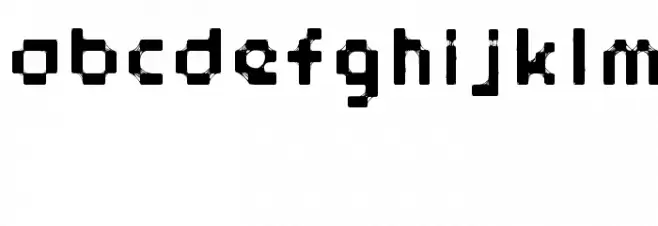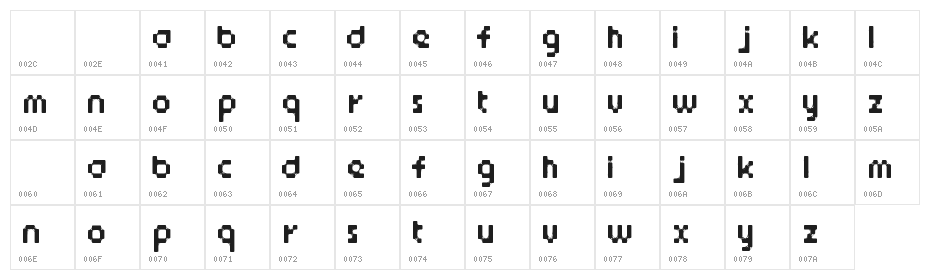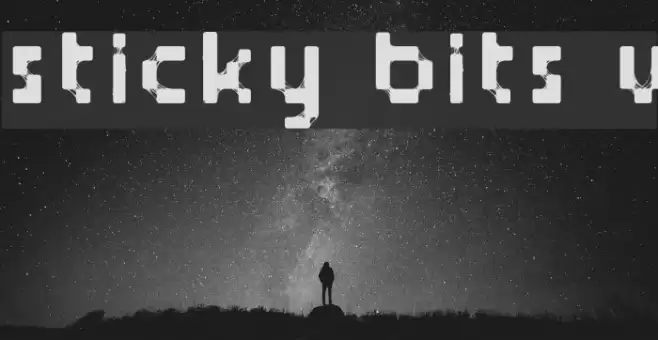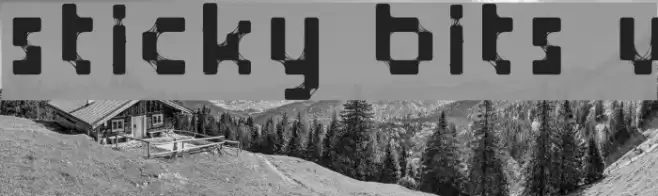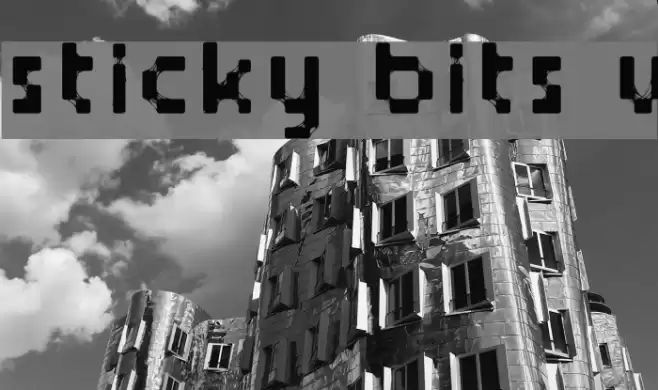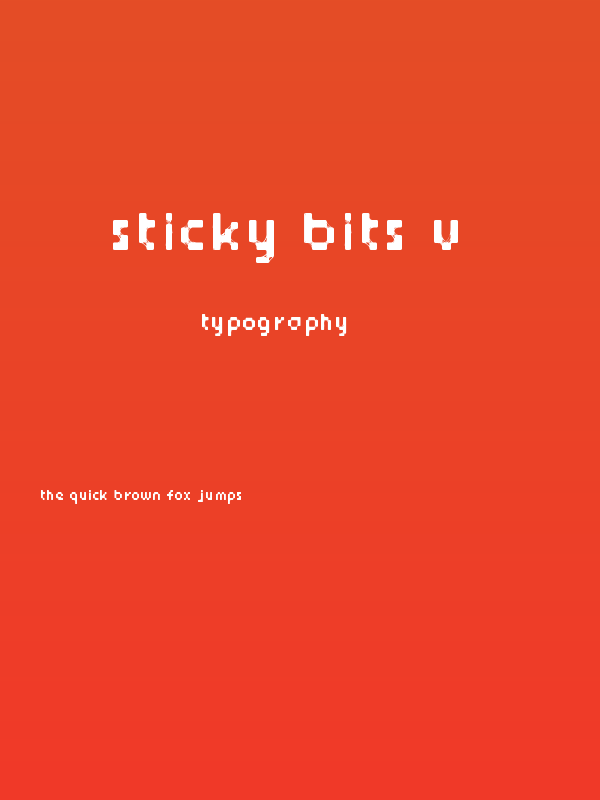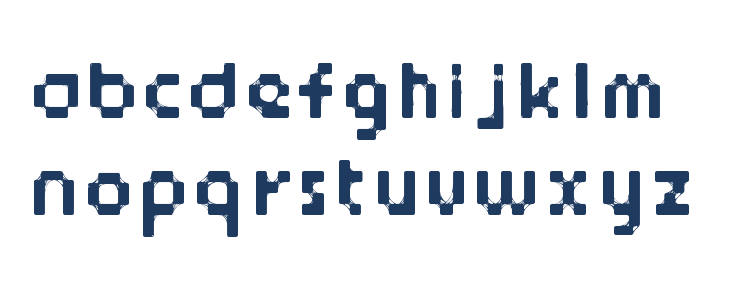
Sticky bits v2 Font
Sticky bits v2 Description
This font features a unique, pixelated style with a modern twist, characterized by its blocky and geometric letterforms. The characters are constructed with a consistent thickness, giving it a bold appearance. The design is reminiscent of early digital typography, making it ideal for projects that require a retro or tech-inspired aesthetic. The font maintains a uniform structure across both uppercase and lowercase letters, ensuring readability while adding a distinct visual flair. Its playful yet structured design makes it versatile for various creative applications.
| Use Case | Logos, Headlines, Digital Art |
| Proposed Projects | Ideal for video game graphics, tech-themed posters, digital art, and retro-style branding. |